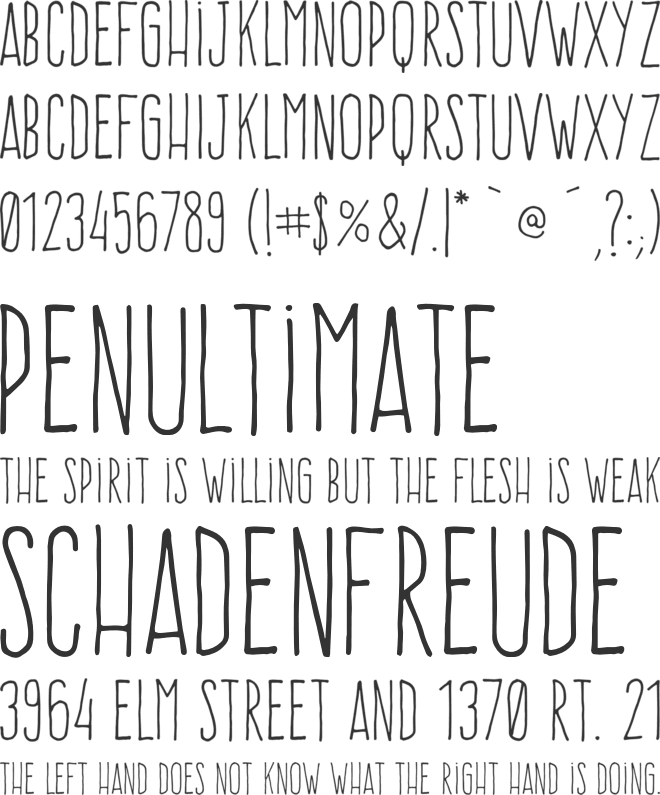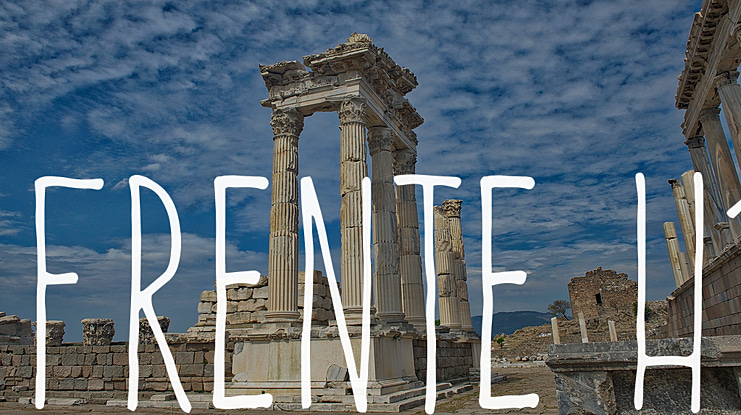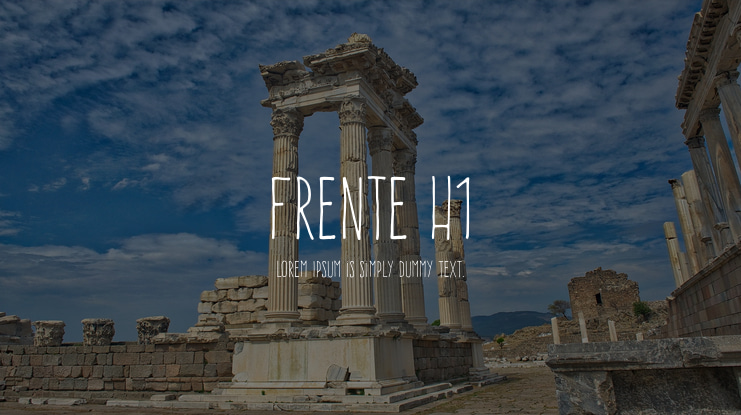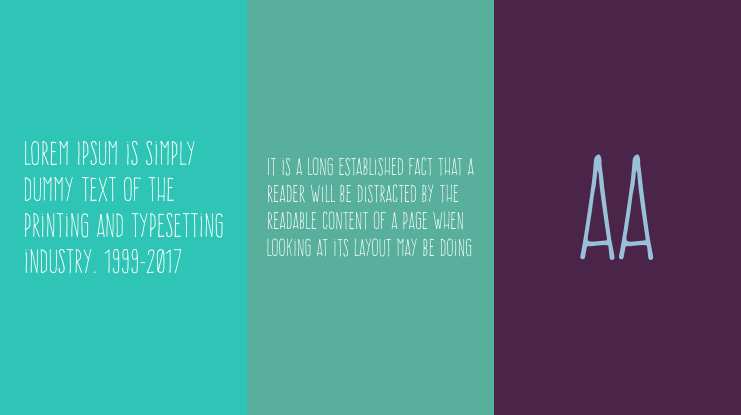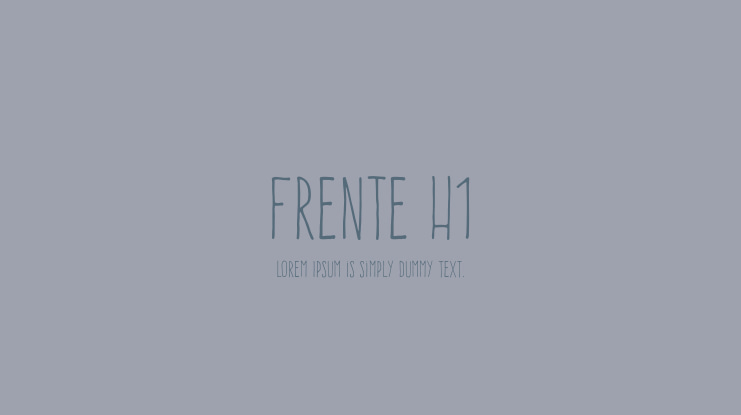
Frente H1 Font
Rodrigo Brod - Estudio Frente
This typography was originally made ​​for the exhibition Ambigrams. Since the result was very interesting, we decided to also adopt it on our website (http://frente.cc/).